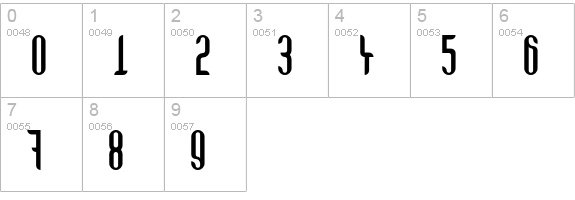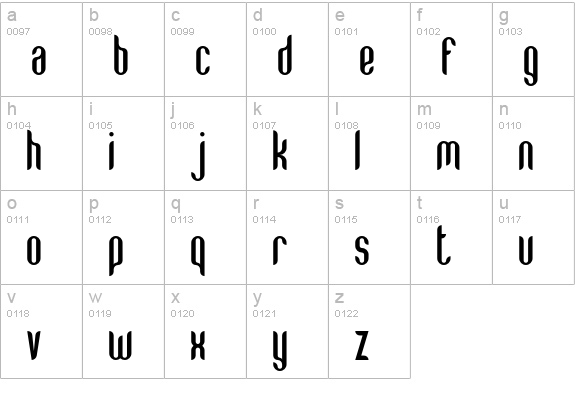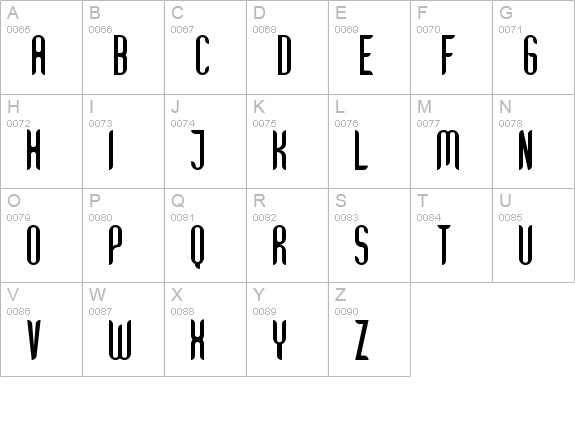
Lo-Fi Font Details
Introducing the Lo-Fi font, a unique and artistic typeface that exudes a cool and laid-back vibe. This font is perfect for adding a touch of retro charm to your designs, whether you're working on a poster, album cover, or social media graphic. With its imperfect lines and vintage feel, the Lo-Fi font brings a sense of nostalgia and authenticity to any project. And the best part? The Lo-Fi font is completely free to download at FontsMarket.com! You can easily add this stylish font to your collection without breaking the bank. So why wait? Download the Lo-Fi font today and elevate your designs with its effortlessly cool aesthetic.